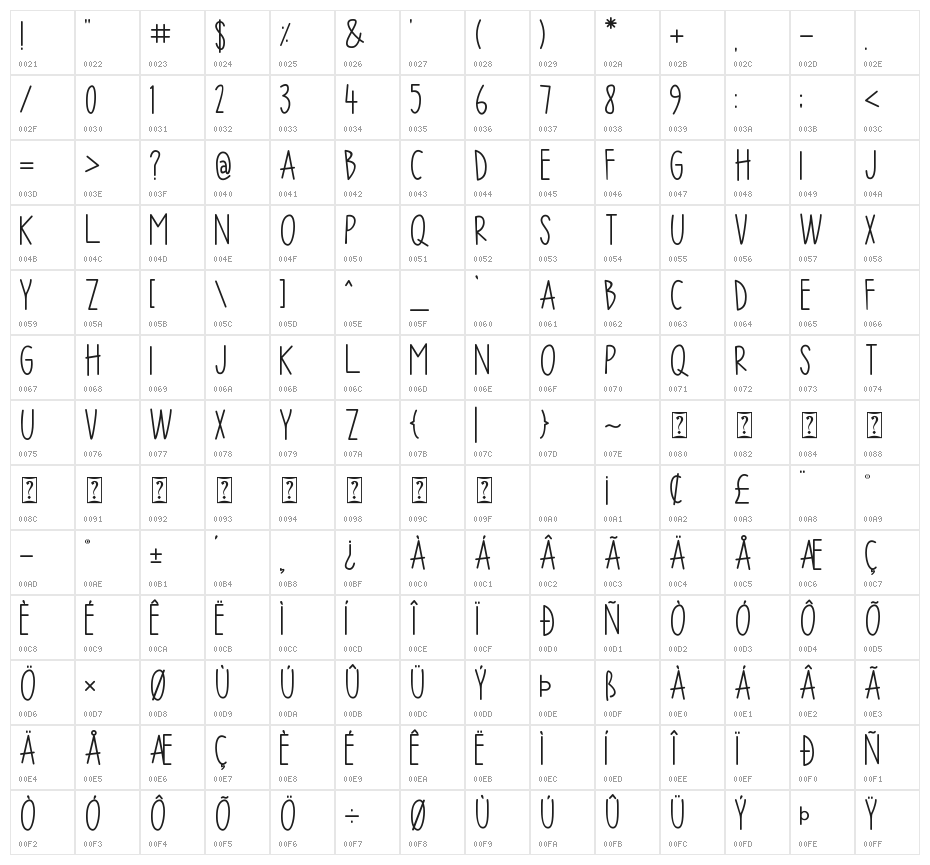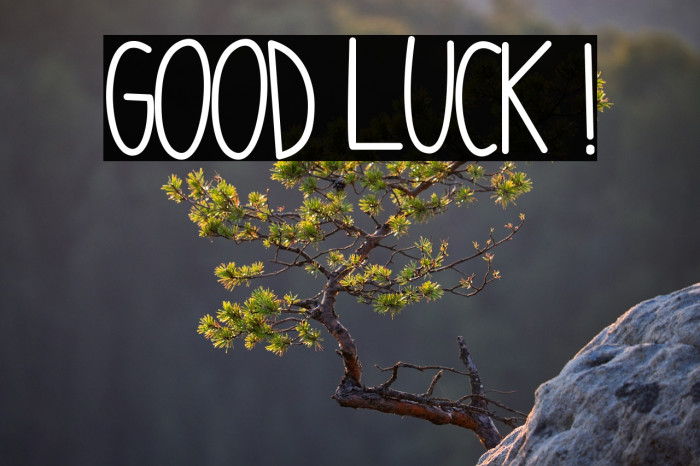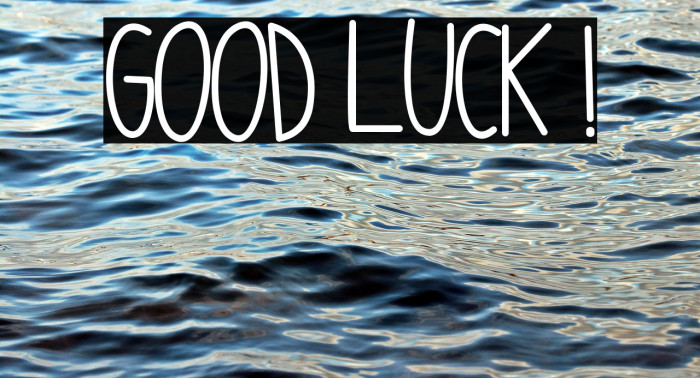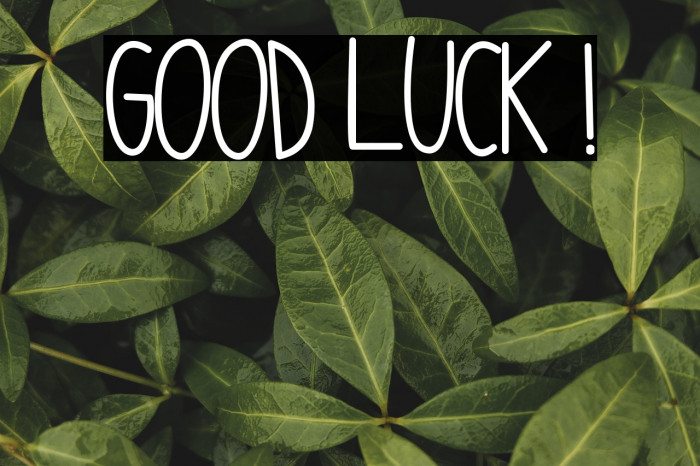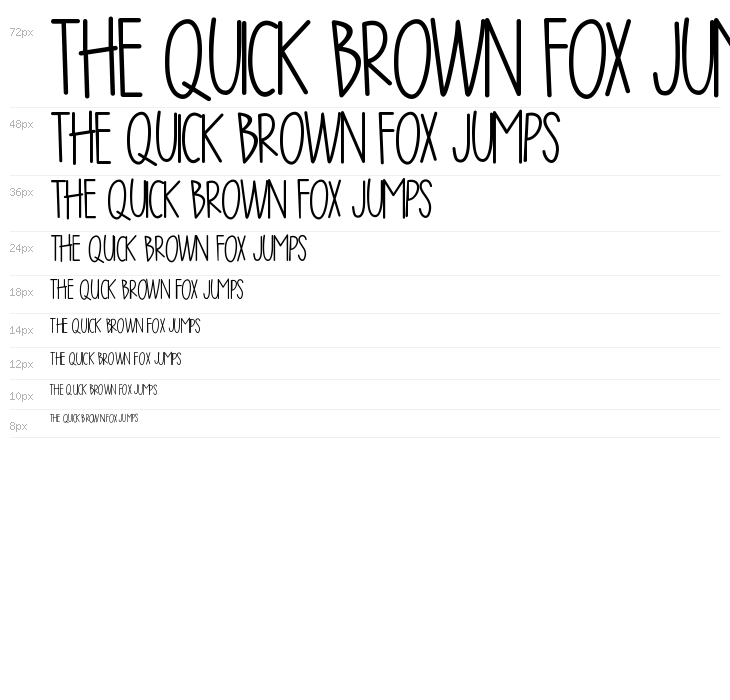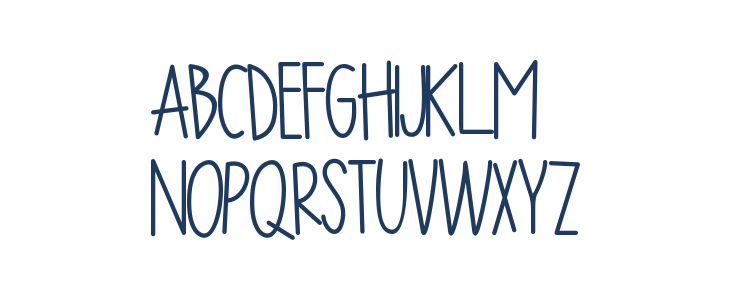
GOOD LUCK ! Font
GOOD LUCK ! Description
This font features a playful and casual handwritten style, characterized by tall, narrow letters with a consistent stroke width. The uppercase and lowercase letters maintain a uniform height, creating a cohesive look. The numbers and special characters are designed to match the overall aesthetic, ensuring versatility across different uses. The font's clean lines and simple forms make it easy to read while retaining a unique, personal touch.
| Use Case | Headlines, Informal text, Branding |
| Proposed Projects | Ideal for greeting cards, children's books, casual branding, and social media graphics. |